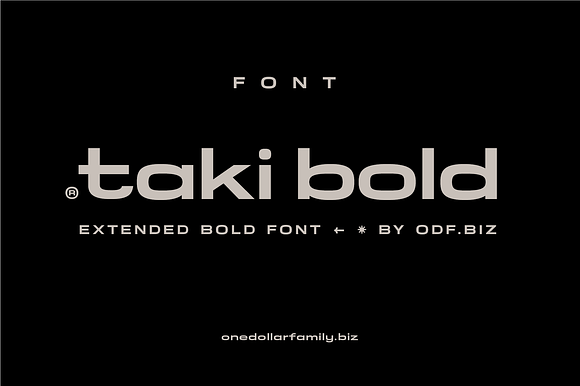
TAKI BOLD [FONT]
"Taki" is an extended bold font. Great for headline and short text block.
TAKI BOLD [FONT] by ZIEBA fits naturally into Branding, posters, packaging, typography.